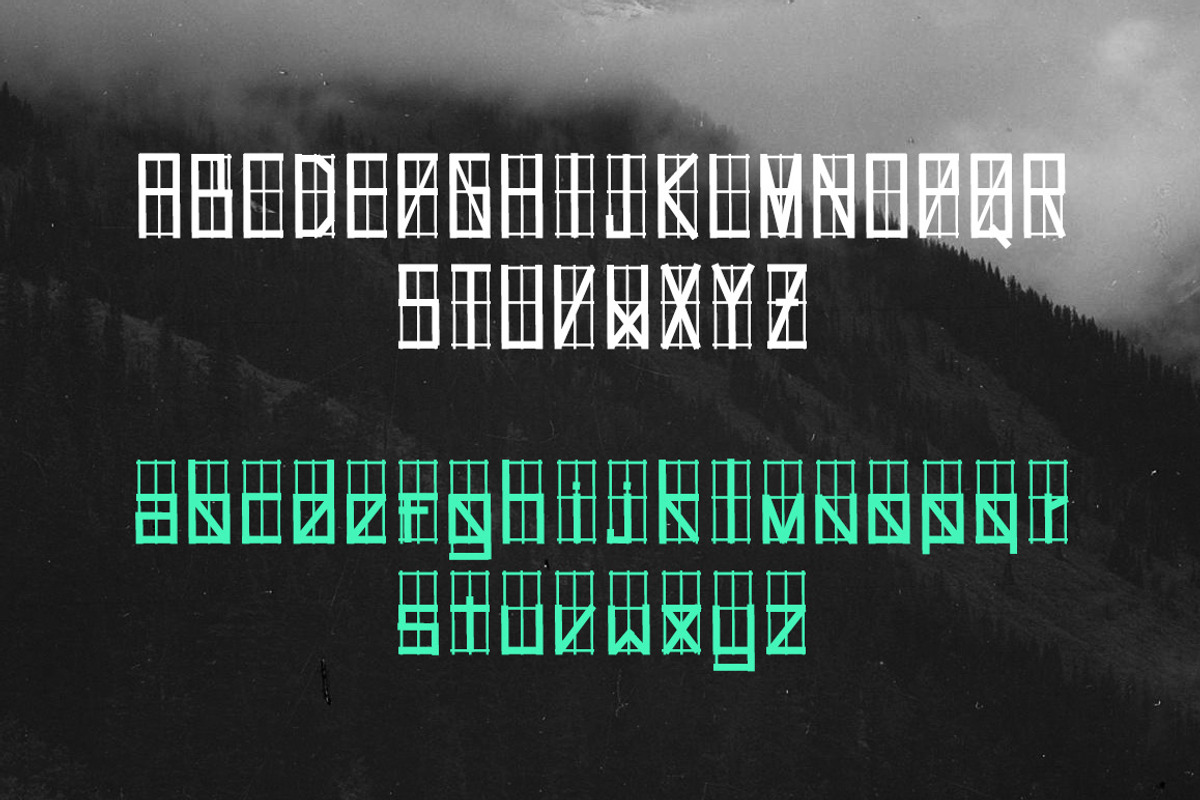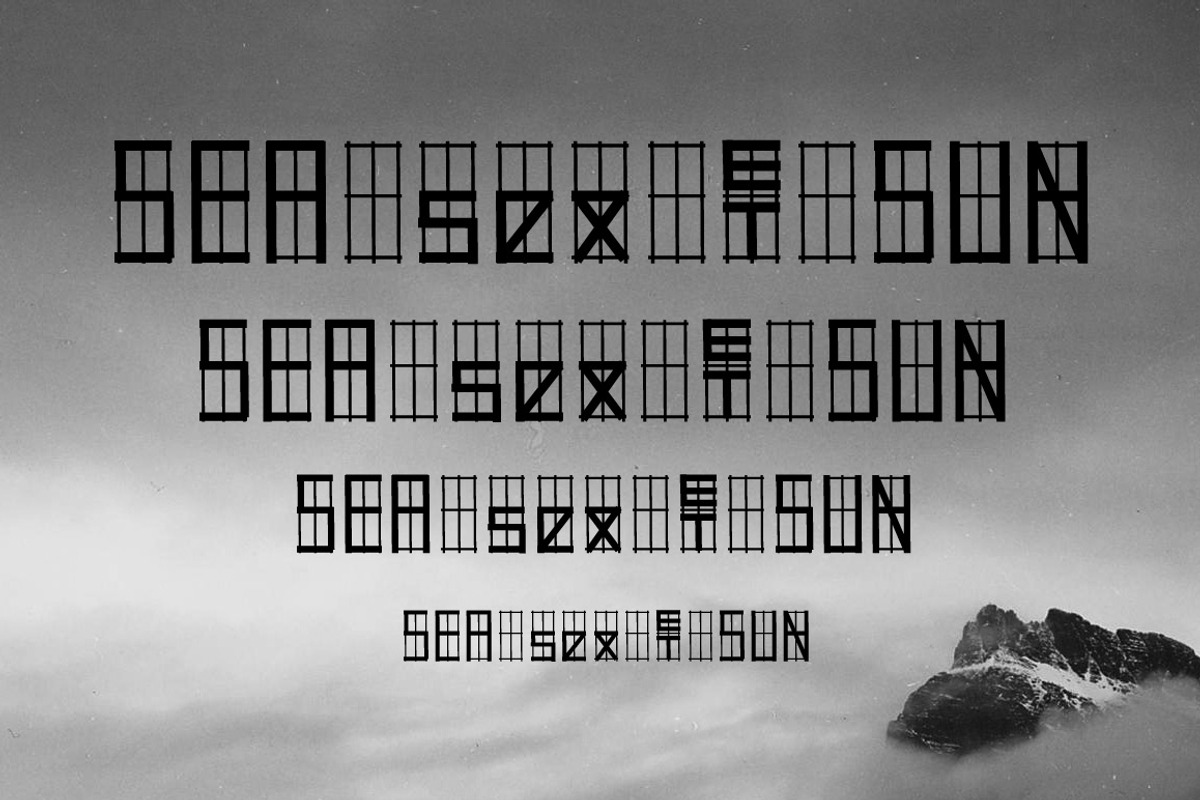
Hollywood 69 - font
Hollywood 69 - font by David is Creative is a font selected for branding, posters, packaging, typography.
Why Hollywood 69 - font is worth a look
Hollywood 69 - font by David is Creative fits naturally into Branding, posters, packaging, typography.